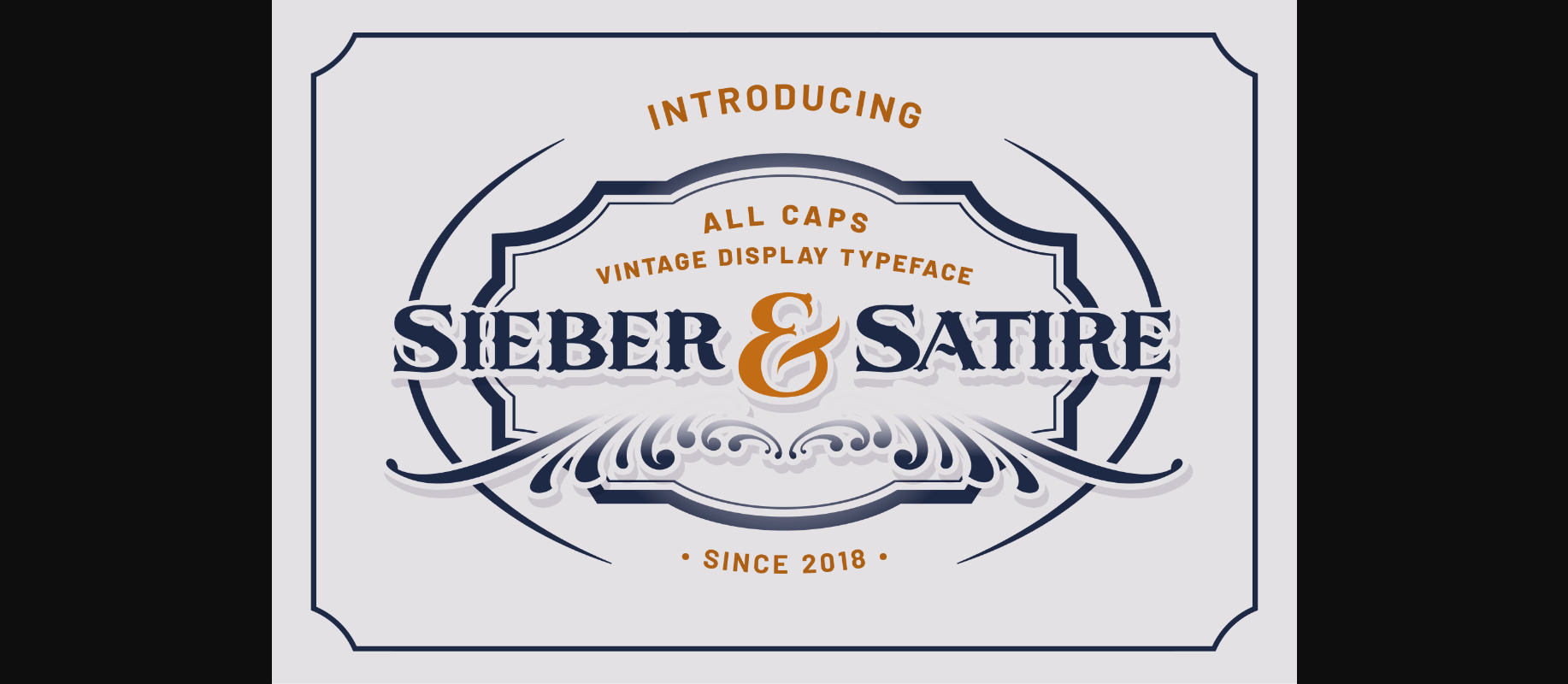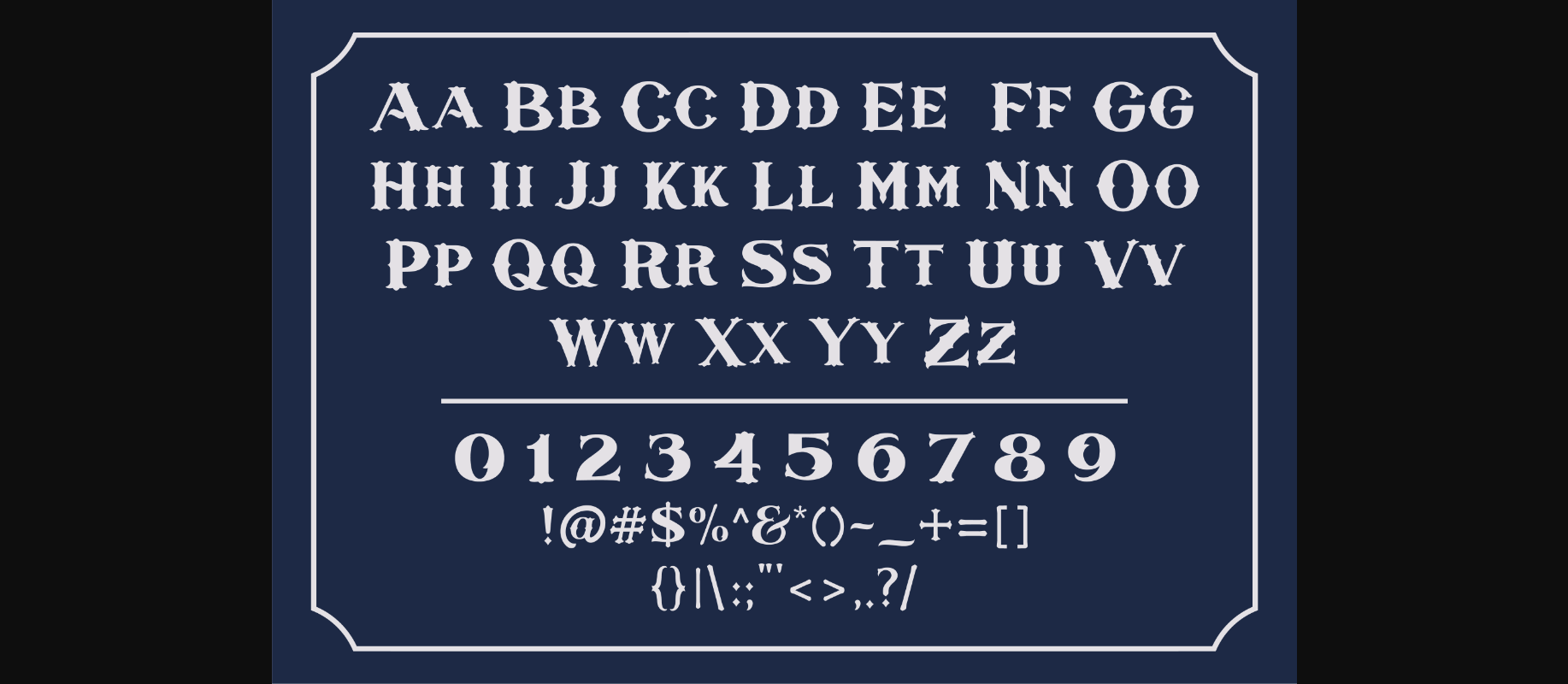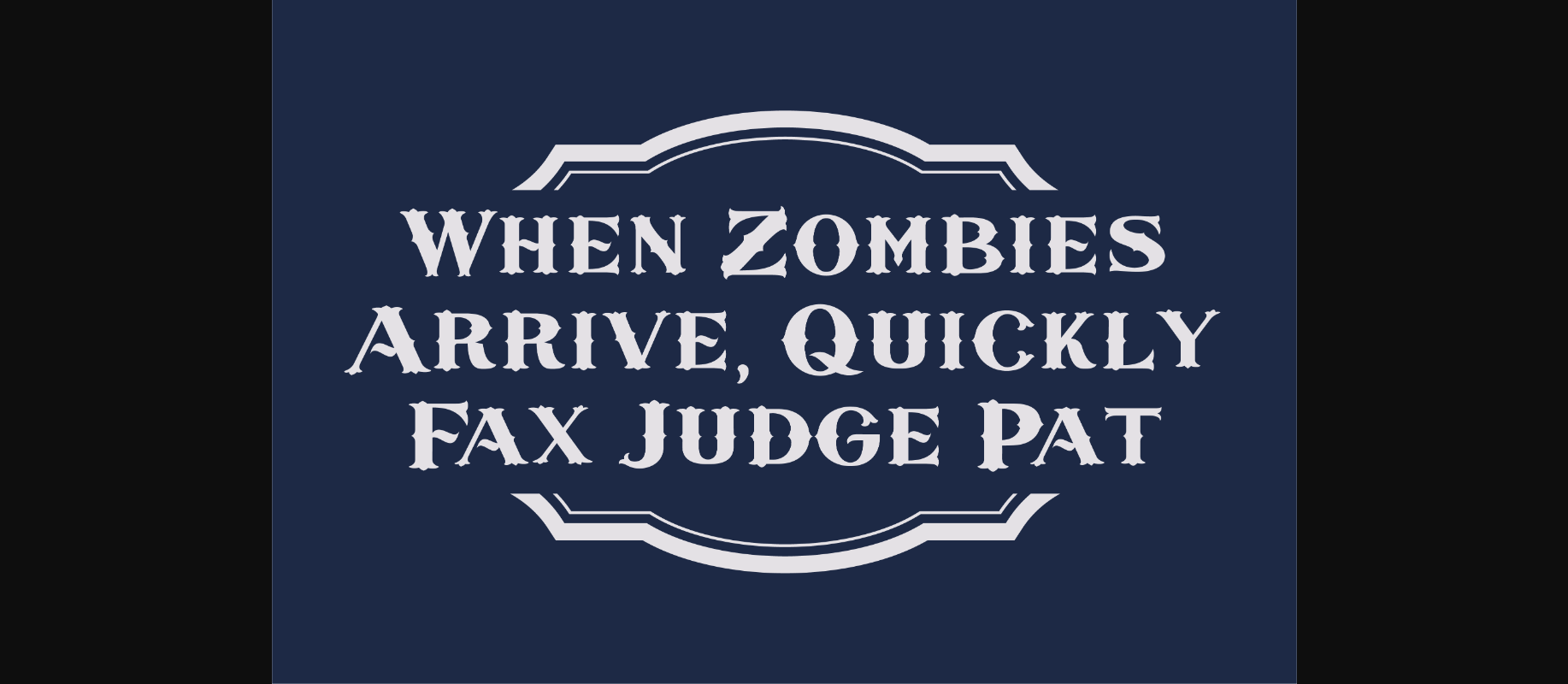
Sieber & Satire Font
About Sieber & Satire Font
Sieber & Satire was created and inspired by vintage typefaces such as traditional sign painting, vintage tins, glass gilding, and old labels that existed in the 19th century.
It consists of all caps characters and numbers in a regular style.